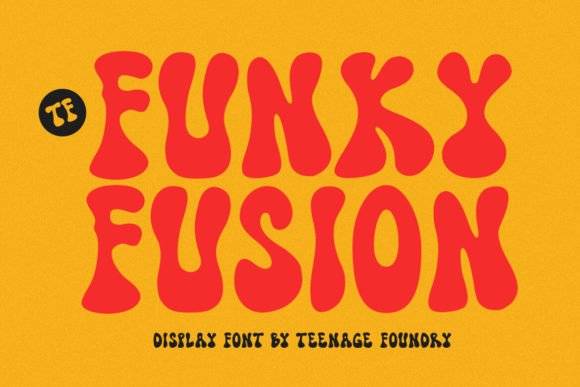
Funky Fusion Font: Add a Groovy Vibe to Your Designs
Are you looking for a font that can add a touch of retro charm and playful energy to your designs? Look no further than the Funky Fusion font. This funky and eccentric display font is perfect for creating eye-catching posters, album covers, and branding materials that exude personality and nostalgia.
What is Funky Fusion Font?
Funky Fusion is a unique and quirky display font that is designed to add a groovy vibe to any project. Its distinctive curves and design elements make it stand out from more traditional fonts, giving it a retro feel that is sure to grab attention.
With its bold and playful appearance, Funky Fusion is perfect for designs that require a bit of personality and flair. Whether you’re creating a poster for a music festival, an album cover for a new band, or branding materials for a company that wants to stand out, this font is sure to deliver.
Key Features of Funky Fusion Font
- Unique Curves: Funky Fusion features distinctive curves and design elements that give it a retro feel.
- Quirky Design: The font’s quirky design makes it perfect for adding a touch of personality to your designs.
- Bold and Playful: Funky Fusion is a bold and playful font that is sure to grab attention.
- Retro Charm: The font’s retro charm makes it perfect for designs that require a nostalgic feel.
Uses for Funky Fusion Font
Funky Fusion is a versatile font that can be used for a variety of design projects. Here are some of the most popular uses for this font:
- Posters: Funky Fusion is perfect for creating eye-catching posters for music festivals, concerts, and other events.
- Album Covers: The font’s retro charm makes it a great choice for album covers that require a nostalgic feel.
- Branding Materials: Funky Fusion can be used to create unique and memorable branding materials, such as logos, business cards, and brochures.
- Signage: The font’s bold and playful appearance makes it perfect for signage that requires attention-grabbing text.
Tips for Using Funky Fusion Font
Here are some tips for using Funky Fusion font in your designs:
- Use it sparingly: Funky Fusion is a bold font, so it’s best to use it sparingly to avoid overwhelming your design.
- Pair it with a neutral font: Pairing Funky Fusion with a neutral font can help to balance out your design and prevent it from looking too busy.
- Experiment with colors: Funky Fusion looks great in a variety of colors, so don’t be afraid to experiment and find the perfect hue for your design.
- Use it to add personality: Funky Fusion is a font that adds personality to your designs, so use it to inject some flair into your project.
Funky Fusion font is a unique and quirky display font that is perfect for adding a touch of retro charm and playful energy to your designs. With its bold and playful appearance, it’s perfect for posters, album covers, branding materials, and signage. By following the tips outlined above, you can use Funky Fusion to create eye-catching designs that exude personality and nostalgia.
- What is Funky Fusion font? Funky Fusion is a funky and eccentric display font that exudes retro charm and playful energy.
- What is Funky Fusion font used for? Funky Fusion is perfect for creating eye-catching posters, album covers, branding materials, and signage.